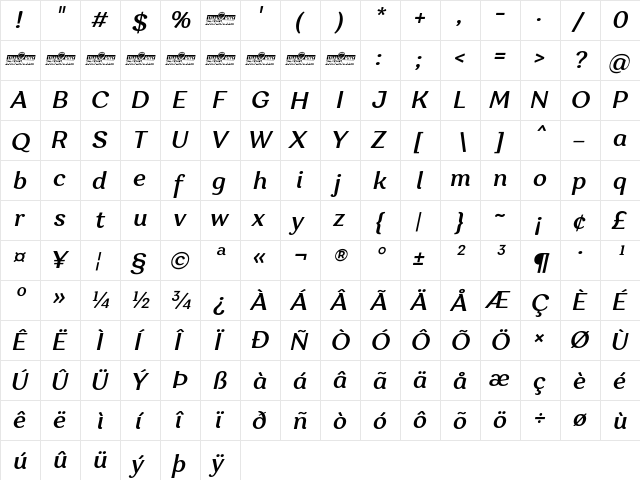
Garbata Trial Medium Italic Font Preview
Garbata Trial Medium Italic
Garbata Trial Medium Italic Font Details
| Style | Medium Italic |
| Foundry | Zetafonts |
| Designer | Francesco Canovaro, Debora Manetti |
Design Context for Garbata Trial Typeface
Garbata Trial is a composed and adaptable typeface that performs quietly and consistently across a wide range of design contexts. The dynamic lean of this cut emphasises speed and emphasis in any layout.